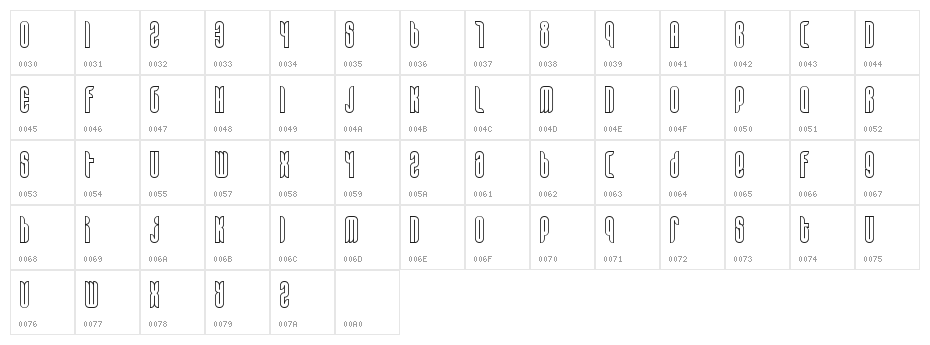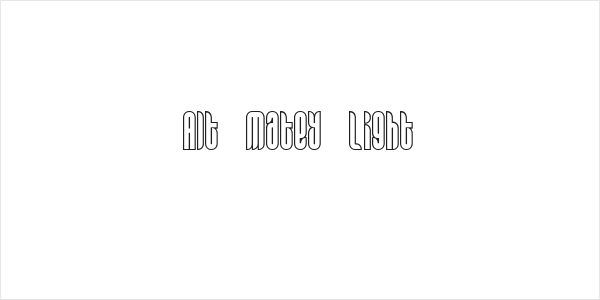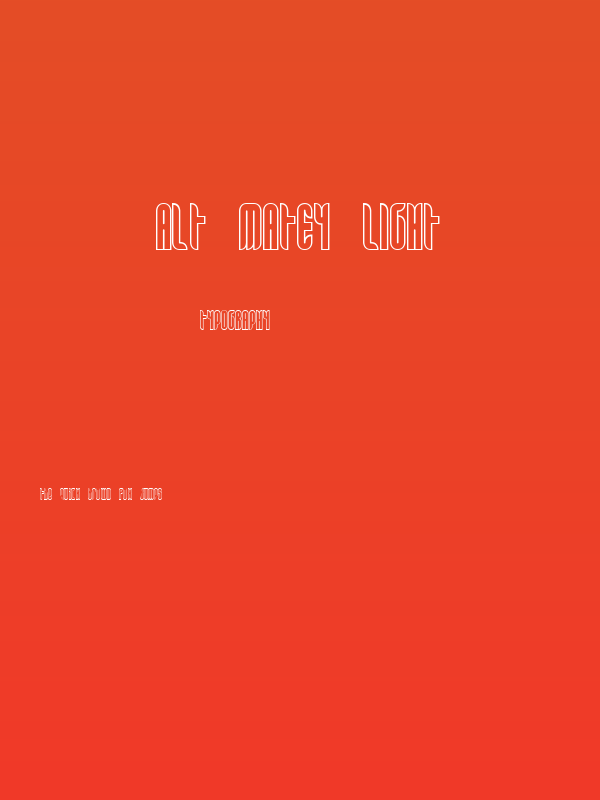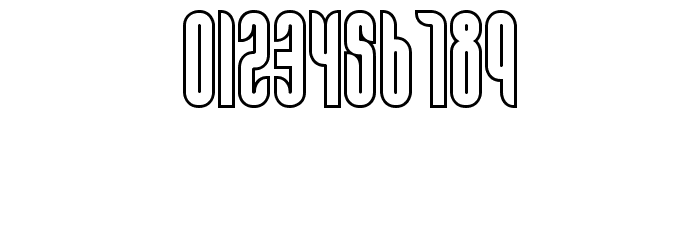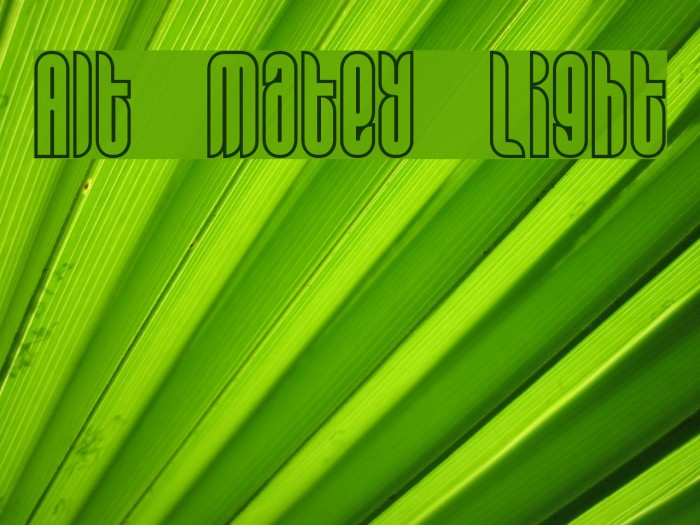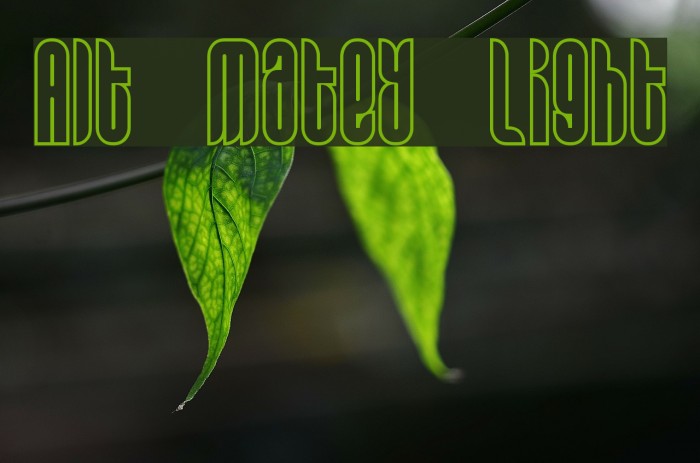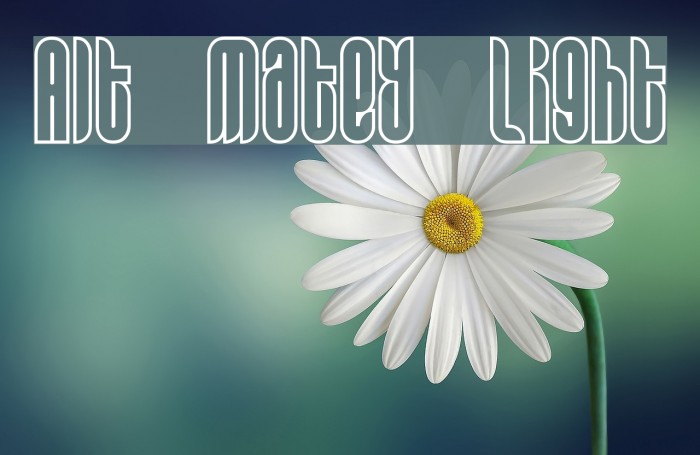
Alt Matey Light Font
Alt Matey Light Description
This font features a unique, decorative style with bold, outlined characters that create a striking visual impact. The uppercase and lowercase letters maintain a consistent width, giving the font a uniform appearance. The characters are designed with a modern flair, incorporating geometric shapes and clean lines. The numbers and special characters follow the same design principles, ensuring a cohesive look across all elements. The font's distinct style makes it ideal for projects that require a bold and eye-catching typeface.
| Proposed Projects | Ideal for branding, poster design, album covers, and any project needing a standout typeface. |